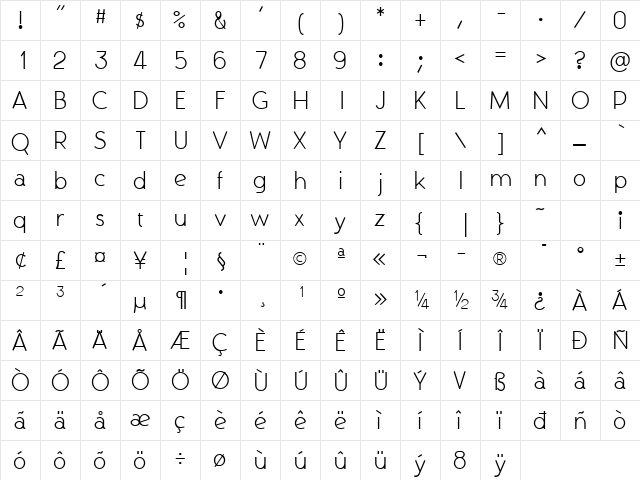
AndrewAndreas Plain
Design Context for AndrewAndreas Typeface
AndrewAndreas offers clean, dependable letterforms without strong stylistic allegiance, making it a practical choice for designers who need flexibility.